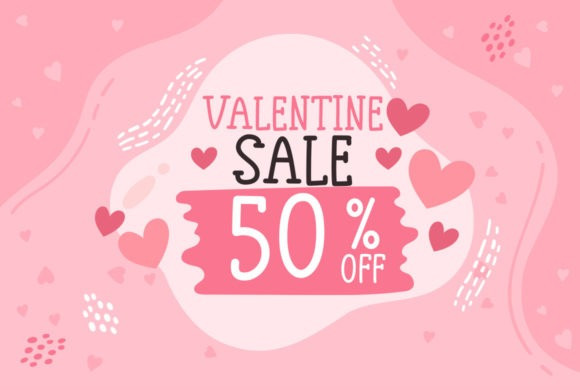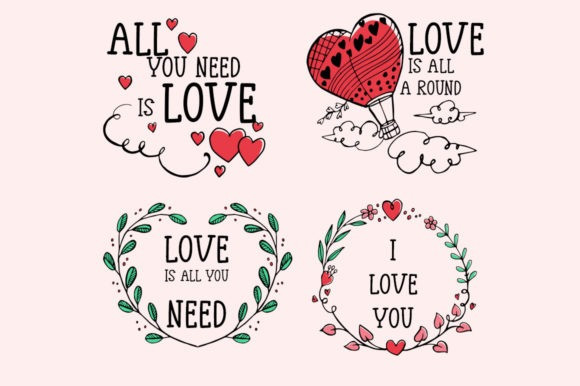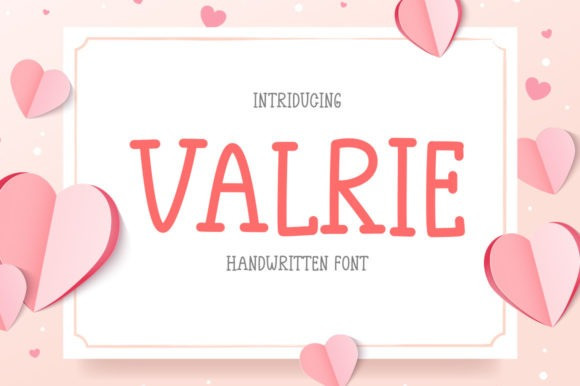
Valrie Font
Valrie Font is a fresh, modern, and thin-lettered display font. Its elegant and natural style will make each of your creations look gorgeous on every level! Add it to each of your creative ideas, and notice how it makes them stand out!